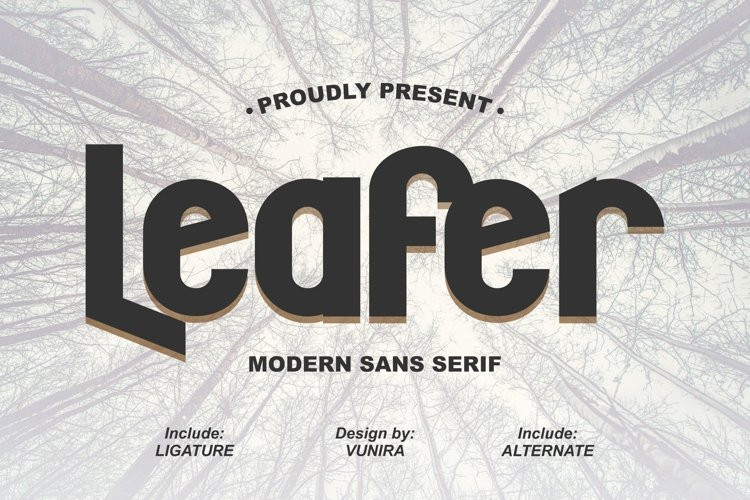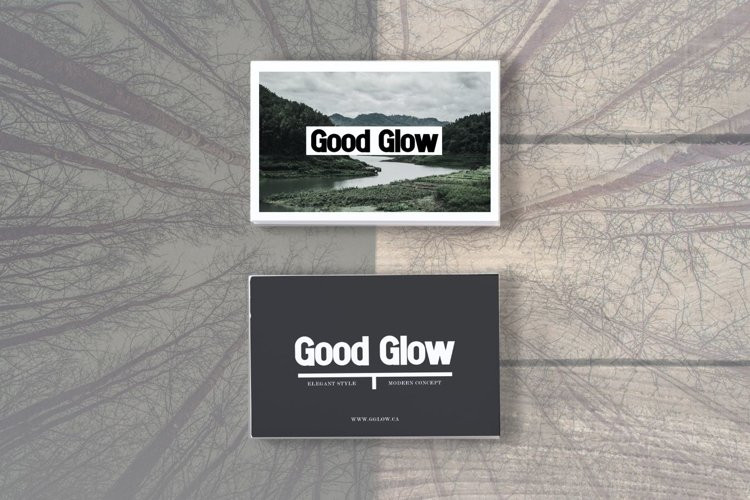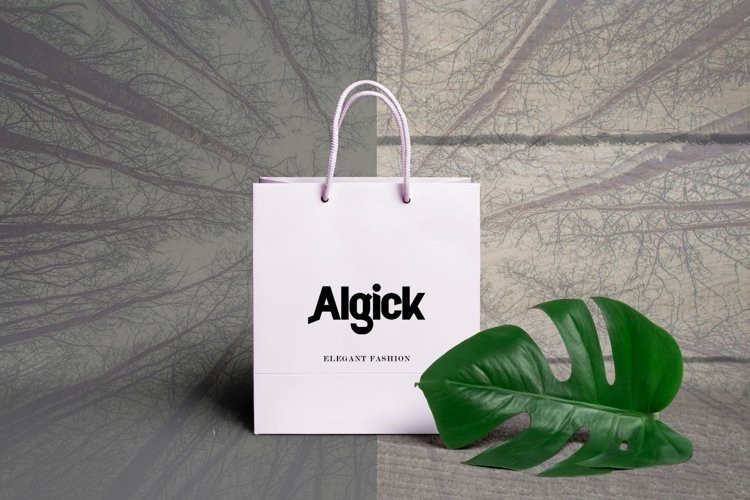
Leafer Font
Leafer FontLeafer | Modern Sans Serif Font with a calligraphy style, So beautiful on invitation like greeting cards, branding materials, business cards, quotes, posters, and more!